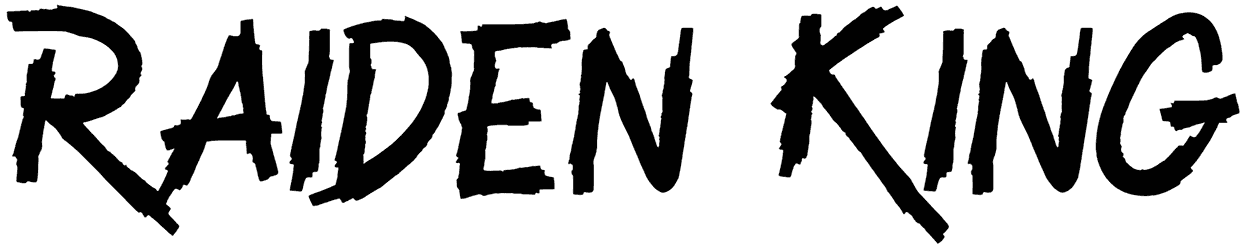
Raiden King Font
Get ready for this sharp horror font, Raiden King, which has a coarse, cutting texture. It comes with two different capital alphabets but doesn’t include any lowercase letters. The broken form of this font is a creative approach to conveying a sense of fear. It will be awesome for scary books, action movies, product packaging, T-shirt prints, and Halloween parties.